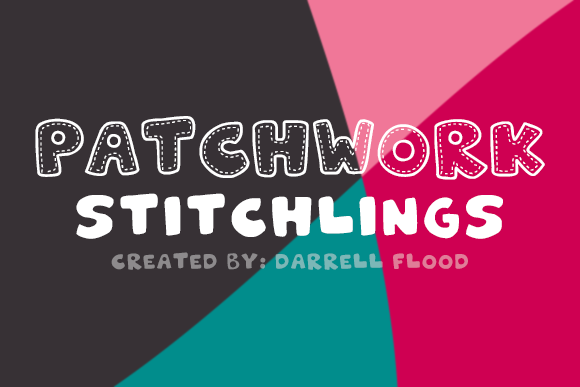
Dive into a world of captivating and playful creations with the Patchwork Stitchlings Font, crafted by the ingenious mind of Darrell Flood. This decorative font family adds a touch of whimsy and individuality to your design projects. Each glyph is meticulously adorned with a stitched line, evoking a sense of warmth and nostalgia. The result is a collection of characters that radiate personality and charm.
Step into a realm where creativity knows no bounds, where your designs come alive with the vibrant energy of the Patchwork Stitchlings Font. Imagine transforming your branding into a masterpiece, leaving an unforgettable mark on your audience. Craft stunning cards that carry a heartfelt message, adorned with the playful elegance of this font. Let your imagination soar as you explore endless possibilities, creating designs that capture the essence of joy and individuality.
Unleash your inner artist and explore the versatility of the Patchwork Stitchlings Font. Its playful nature complements a wide range of design projects, inviting you to experiment and create something truly unique. Add a touch of whimsy to your social media posts, creating graphics that captivate your followers. Design eye-catching posters and flyers that demand attention, making your message impossible to ignore. The possibilities are limitless, waiting for you to unlock their potential.
Embrace the Patchwork Stitchlings Font, the ultimate companion for designers, crafters, and creatives alike. With its ability to transform ordinary designs into extraordinary masterpieces, this font is your gateway to a world of creativity and inspiration. Join the ranks of those who have discovered the magic of the Patchwork Stitchlings Font, and let your imagination run wild.